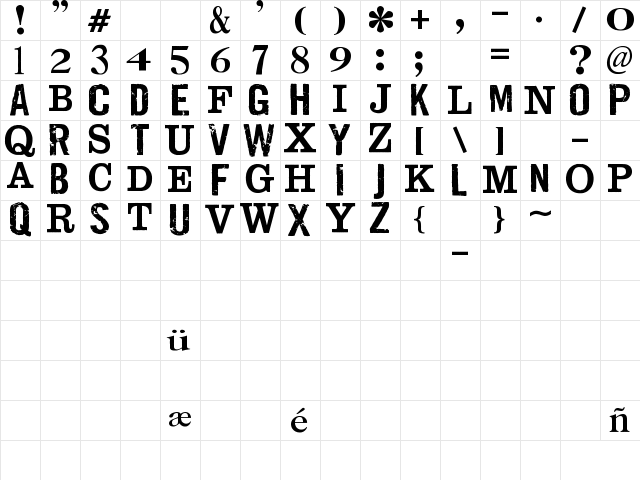
jailbIrD JenNA Regular Font Preview
jailbIrD JenNA Regular
jailbIrD JenNA Regular Font Details
Design Context for jailbIrD JenNA Typeface
jailbIrD JenNA is a composed and adaptable typeface that performs quietly and consistently across a wide range of design contexts.